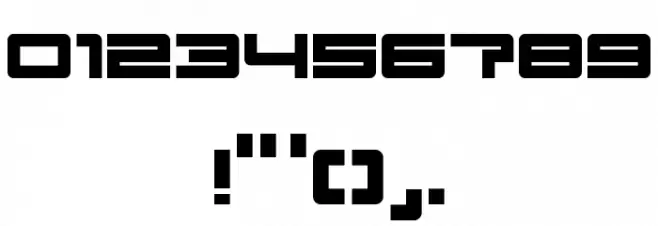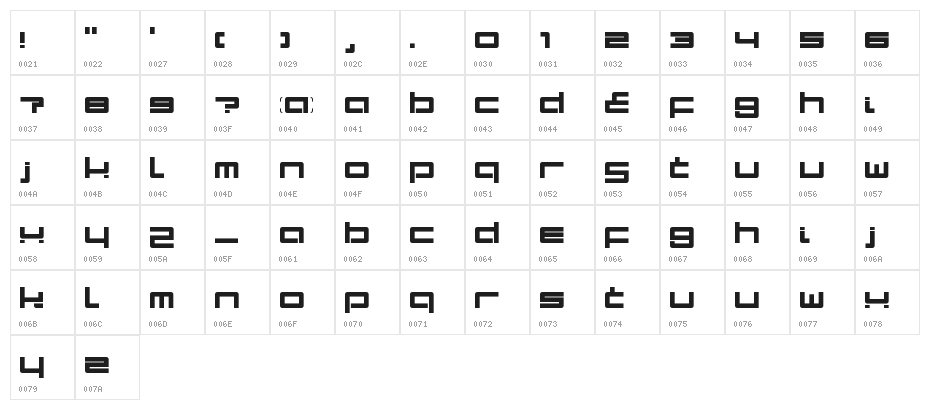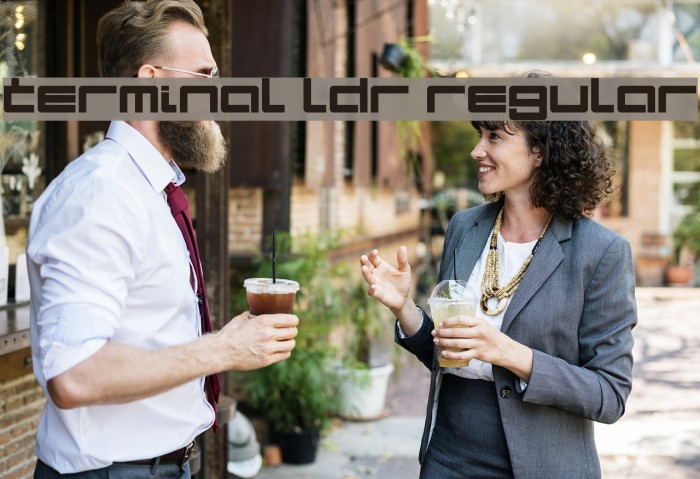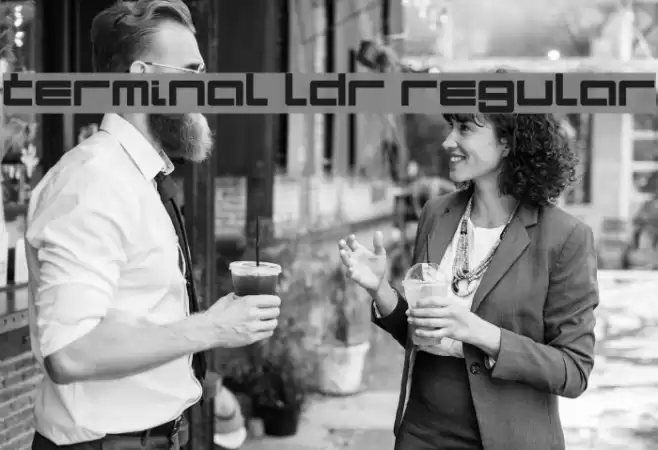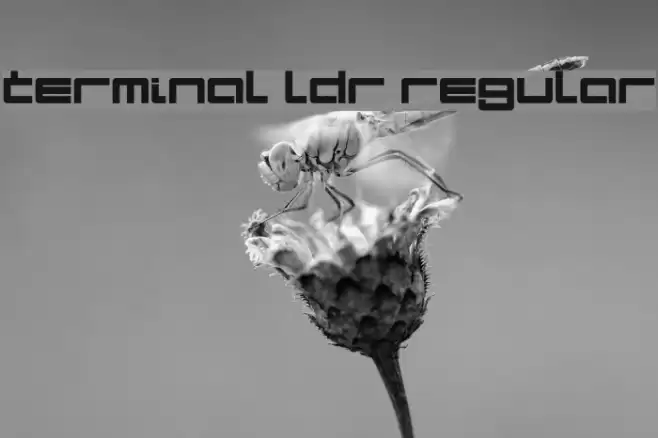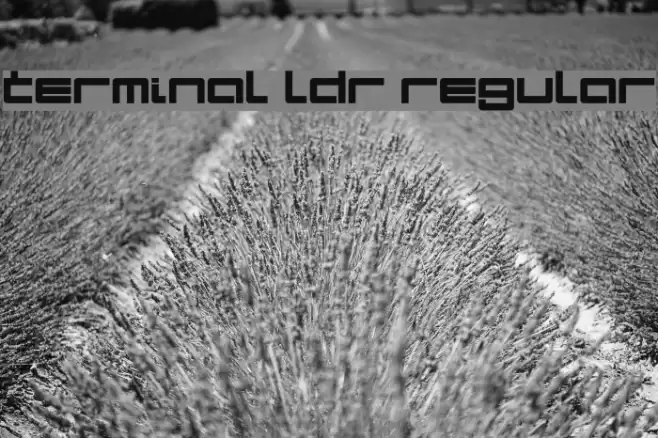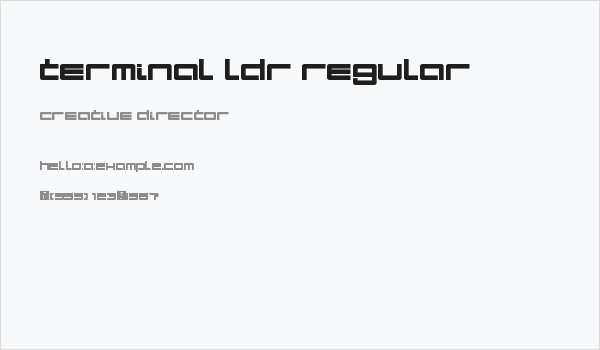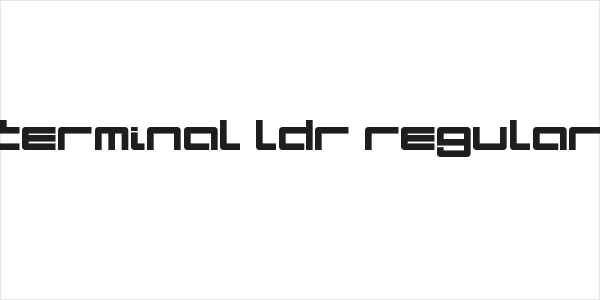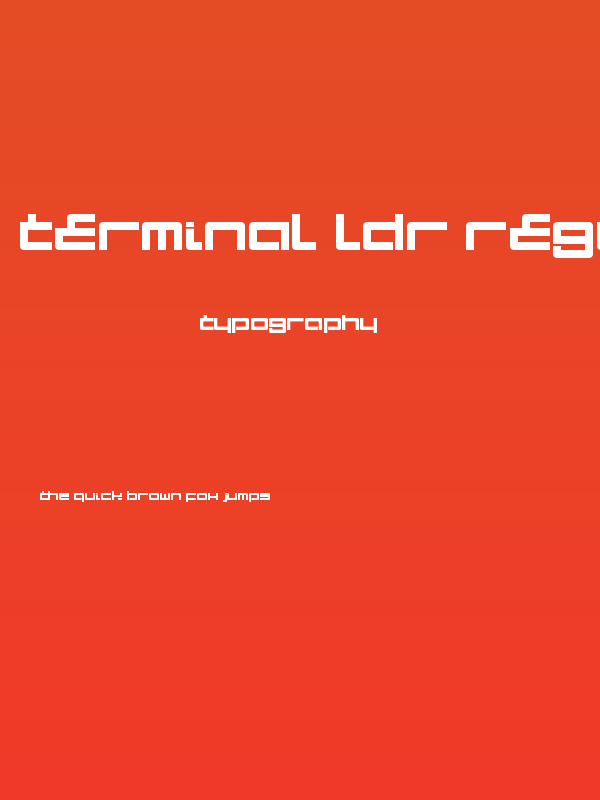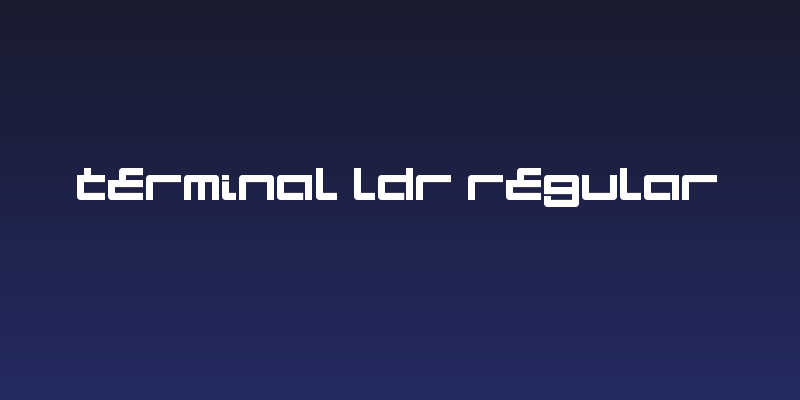
Terminal LDR Regular Font
Terminal LDR Regular Description
This font features a futuristic, geometric design with a distinctly digital aesthetic. The characters are composed of bold, block-like shapes with consistent stroke widths, giving it a monospaced appearance. The angular and squared-off edges contribute to its modern and technical feel, reminiscent of early computer terminal displays. The uniformity in character height and width enhances its readability, while the unique design elements, such as the open counters and minimalistic approach, add a touch of sophistication. This font is ideal for projects that require a tech-savvy, contemporary look.
| Use Case | Logos, Headlines, Digital Interfaces |
| Proposed Projects | Ideal for tech-related branding, digital interfaces, video game design, and futuristic-themed posters. |